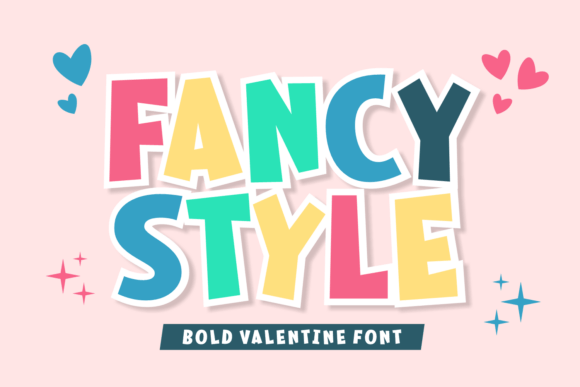
Fancy Style Font: Adding a Whimsical Touch to Your Designs
In the world of graphic design, typography plays a crucial role in conveying the tone and personality of a project. When it comes to creating visually appealing and engaging designs, the right font can make all the difference. This is where Fancy Style Font comes in – a funky comic display font that adds an enchanting twist to your designs. Composed of lively characters, Fancy Style is bursting with sheer vivacity, infusing an infectious sense of humor and delight into your artworks.
The Power of Fancy Style Font
Fancy Style Font is optimally designed for comic books, posters, or any project that requires a whimsical touch. With its playful and lively characters, this font is sure to captivate and entertain your audience. Whether you’re a designer, artist, or writer, Fancy Style Font is the perfect tool to unleash your creativity and tell your stories in a visually compelling way.
One of the key features of Fancy Style Font is its ability to add a touch of humor and wit to your designs. The font’s unique and quirky characters are designed to bring a smile to your audience’s faces, making it perfect for projects that require a lighthearted and playful tone. From comic books to posters, Fancy Style Font is sure to make your designs stand out from the crowd.
The Benefits of Using Fancy Style Font
So, why choose Fancy Style Font for your designs? Here are just a few benefits of using this vibrant font:
- Unique and Quirky Characters: Fancy Style Font features unique and quirky characters that are sure to add a touch of personality to your designs.
- Playful and Lively: The font’s playful and lively characters are perfect for projects that require a whimsical touch.
- Infectious Sense of Humor: Fancy Style Font infuses an infectious sense of humor and delight into your artworks, making it perfect for projects that require a lighthearted tone.
- Optimized for Comic Books and Posters: The font is optimally designed for comic books, posters, or any project that requires a whimsical touch.
The History of Fancy Style Font
Fancy Style Font has a rich history that dates back to the early days of typography. The font was created by a team of designers who wanted to create a unique and quirky font that would add a touch of personality to designs.
The font was inspired by classic comic books and posters from the 20th century. The designers wanted to create a font that would capture the playful and lively spirit of these classic designs, while also adding a modern twist.
The Impact of Fancy Style Font on Design
Fancy Style Font has had a significant impact on the world of design. The font has been used in a wide range of projects, from comic books to posters, and has helped to add a touch of personality and whimsy to designs.
The font has also inspired a new generation of designers to experiment with typography and create unique and quirky fonts that add a touch of personality to designs.
In conclusion, Fancy Style Font is a vibrant and playful font that adds an enchanting twist to your designs. With its unique and quirky characters, infectious sense of humor, and optimized design for comic books and posters, Fancy Style Font is the perfect tool to unleash your creativity and tell your stories in a visually compelling way.
Whether you’re a designer, artist, or writer, Fancy Style Font is sure to captivate and entertain your audience. So why not give it a try and see the impact it can have on your designs?
- What is Fancy Style Font?: Fancy Style Font is a funky comic display font composed of lively characters.
- What is Fancy Style Font used for?: Fancy Style Font is optimally designed for comic books, posters, or any project that requires a whimsical touch.
- Is Fancy Style Font easy to use?: Yes, Fancy Style Font is easy to use and can be used in a variety of design projects.